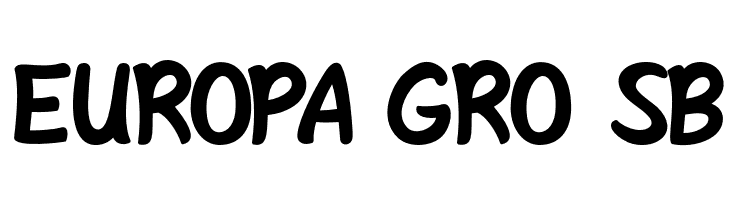
A bold, playful handwritten font with rounded, irregular letterforms.
A bold, italic, handwritten font with a playful and dynamic style.
A bold, playful handwritten font with rounded, consistent letterforms.
A bold, playful handwritten font with rounded edges and thick strokes.
A bold, italic, handwritten-style font with smooth curves and a playful aesthetic.
A bold, italicized handwritten font with smooth curves and a playful style.
A flowing, cursive script with elegant, sweeping strokes.
A bold, energetic handwritten font with fluid strokes and a personal touch.
A bold, brush-style script font with dynamic curves and elegant flourishes.
A dynamic and elegant script font with fluid, cursive letterforms.
A lively, playful handwritten font with fluid, connected strokes.
A lively, handwritten font with fluid, connected letters and a playful style.
A bold, playful script font with a handwritten, decorative style.
A flowing, cursive font with elegant, sweeping lines and interconnected characters.
A playful, bold, and rounded font with a hand-drawn, comic-like style.
A dynamic, brush-style font with a slanted, energetic appearance.
A decorative and ornate font with floral embellishments and high contrast strokes.
A lively, cursive script font with fluid, interconnected letters.
A bold, decorative serif font with a blend of traditional and modern elements.
A playful, handwritten font with fluid strokes and a casual vibe.
A bold, brushstroke-style font with an edgy, hand-drawn appearance.
A bold, expressive script font with a playful, handwritten style.
A bold, expressive brush script font with dynamic strokes.
A dynamic script font with fluid, cursive strokes and a bold, expressive style.
A playful handwritten font with smooth, flowing lines and a casual style.
An elegant script font with flowing, high-contrast cursive letterforms.
A modern, elegant handwritten font with medium contrast and fluid strokes.
A bold, playful font with a Western flair and bouncy, energetic characters.